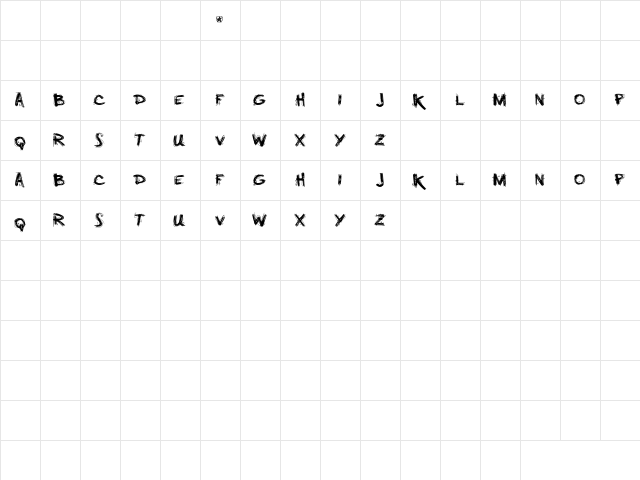
minus Regular Font Preview
minus Regular
minus Regular Font Details
Design Context for minus Typeface
minus is a composed and adaptable typeface that performs quietly and consistently across a wide range of design contexts.
Pro Tip: Use minus in both headline and body roles to test its range before committing to a single application.